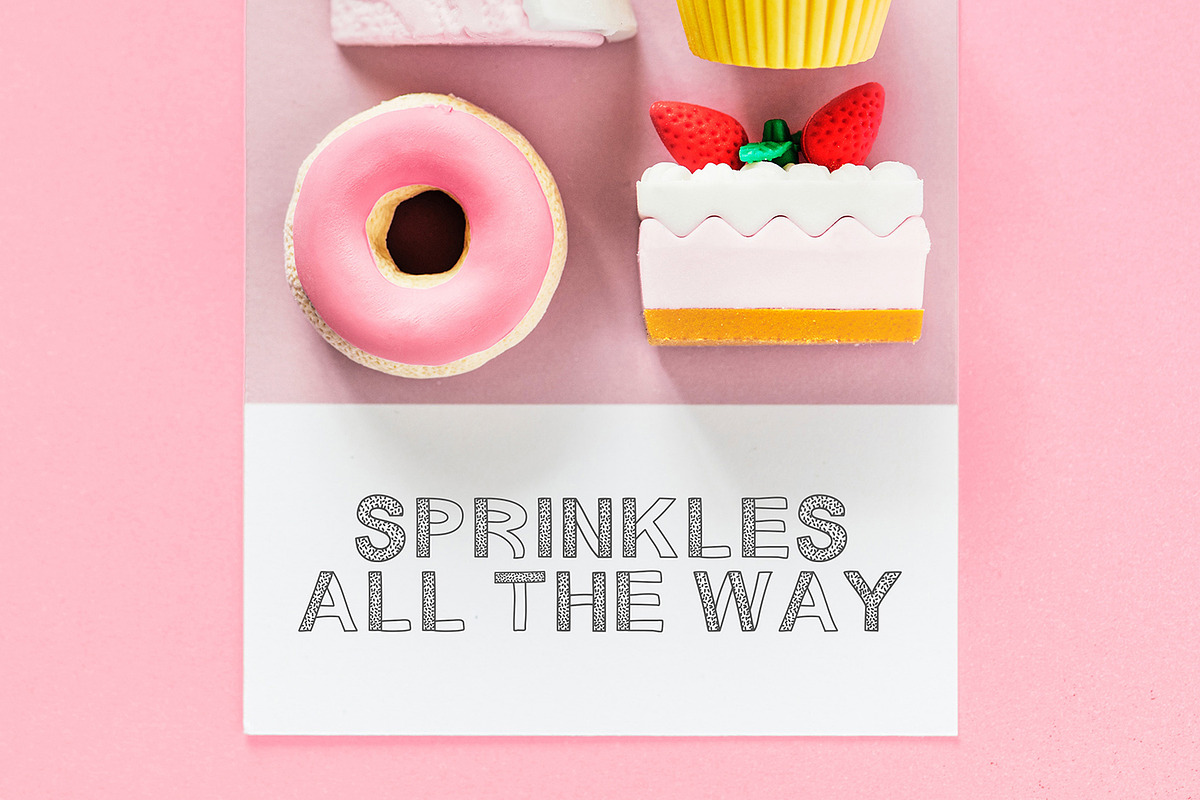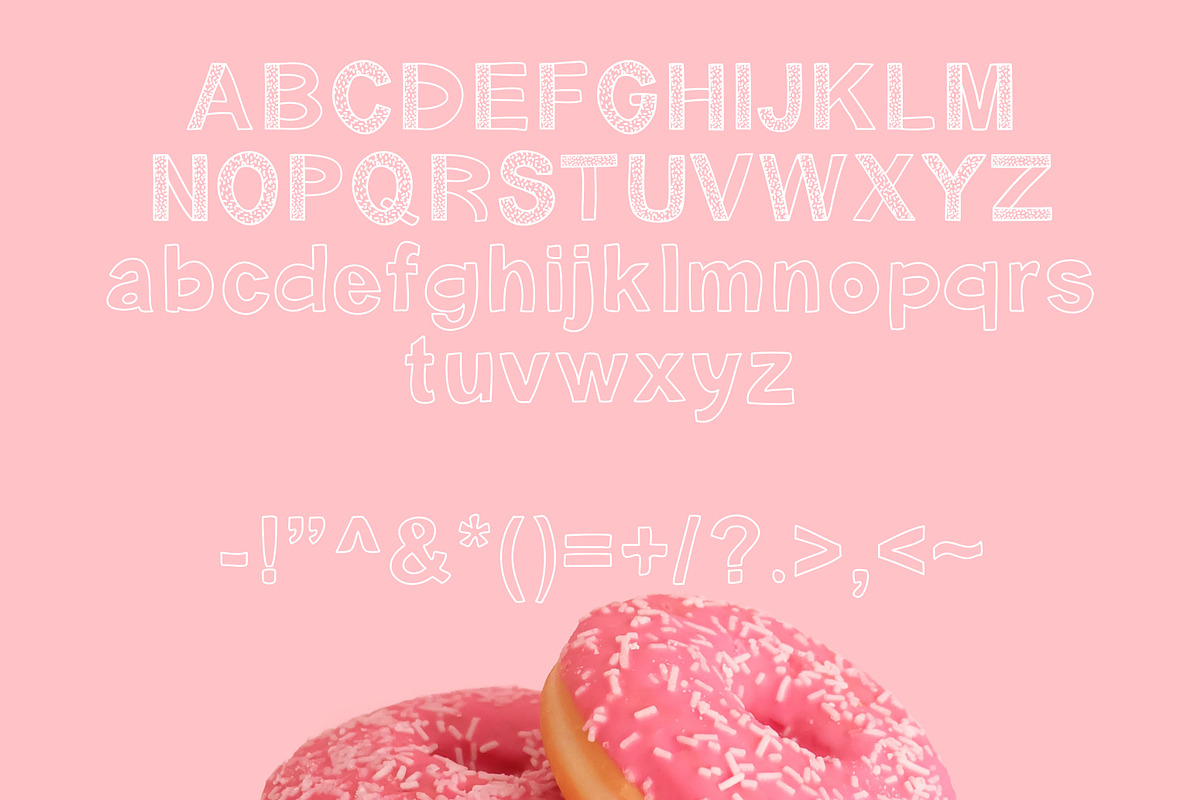
Sprinkles Patterned Font
A handwritten font with sprinkle details. This playful font would look great in your print, mug or invitation designs.
- Included in this listing is the upper case and lower case letters, numbers and special characters.